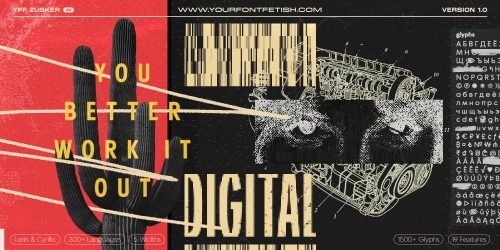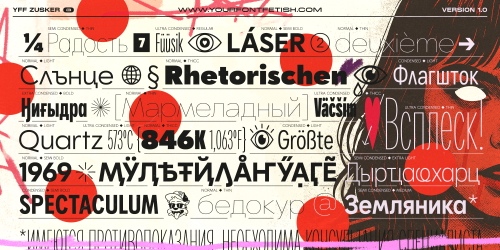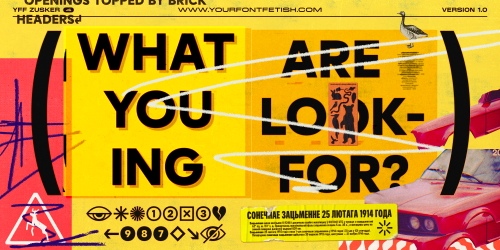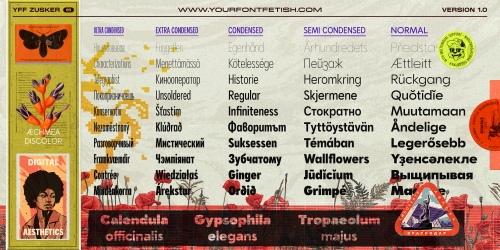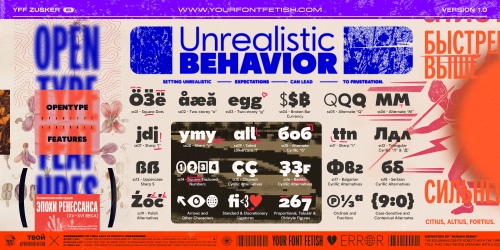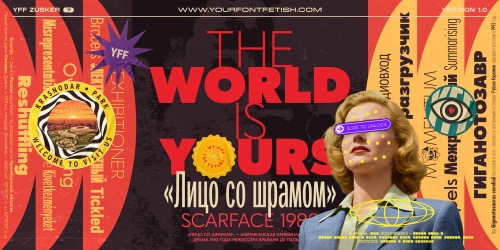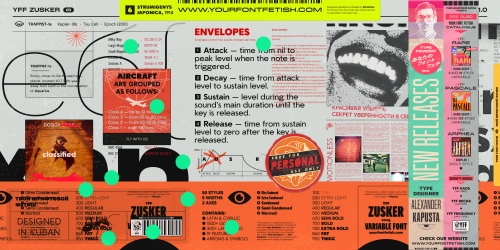
YFF Zusker 50 Styles & 1 Variable Fonts Collection
- YFF Zusker will close the need for a good working geometric grotesque. for speakers of rare and small Cyrillic languages. In addition, there are arrows, numbers in circles, and icons. There are ten options for icons with eyes alone. YFF Zusker typeface was designed from 2019 to 2025 by Alexander Kapusta.
- YFF Zusker is a warm geometric sans serif with a vintage feel. It’s versatile and works equally well in text paragraphs on information-rich websites, friendly logos, and bold, expressive headings. Style system. The typeface includes 50 styles, ranging from moderately condensed to normal widths, and from Thin to Extra Bold. All styles are combined in a variable font.
- The primary source of inspiration for the designer, Alexander Kapusta, was Soviet-era catalogs and atlases set in Zhurnalnaya Rublenaya (Journal Sans). The Thin and Extra Bold styles, meanwhile, draw from mid-20th-century American appliance manuals and the iconic geometric sans serif Futura. As a result, YFF Zusker is an excellent choice when you want to bring a sense of nostalgia and human warmth into a design. Character set. A distinctive feature of YFF Zusker is its extensive language support. It covers more than 400 languages, including all minority languages of Russia — from Abazin to Yukagir.